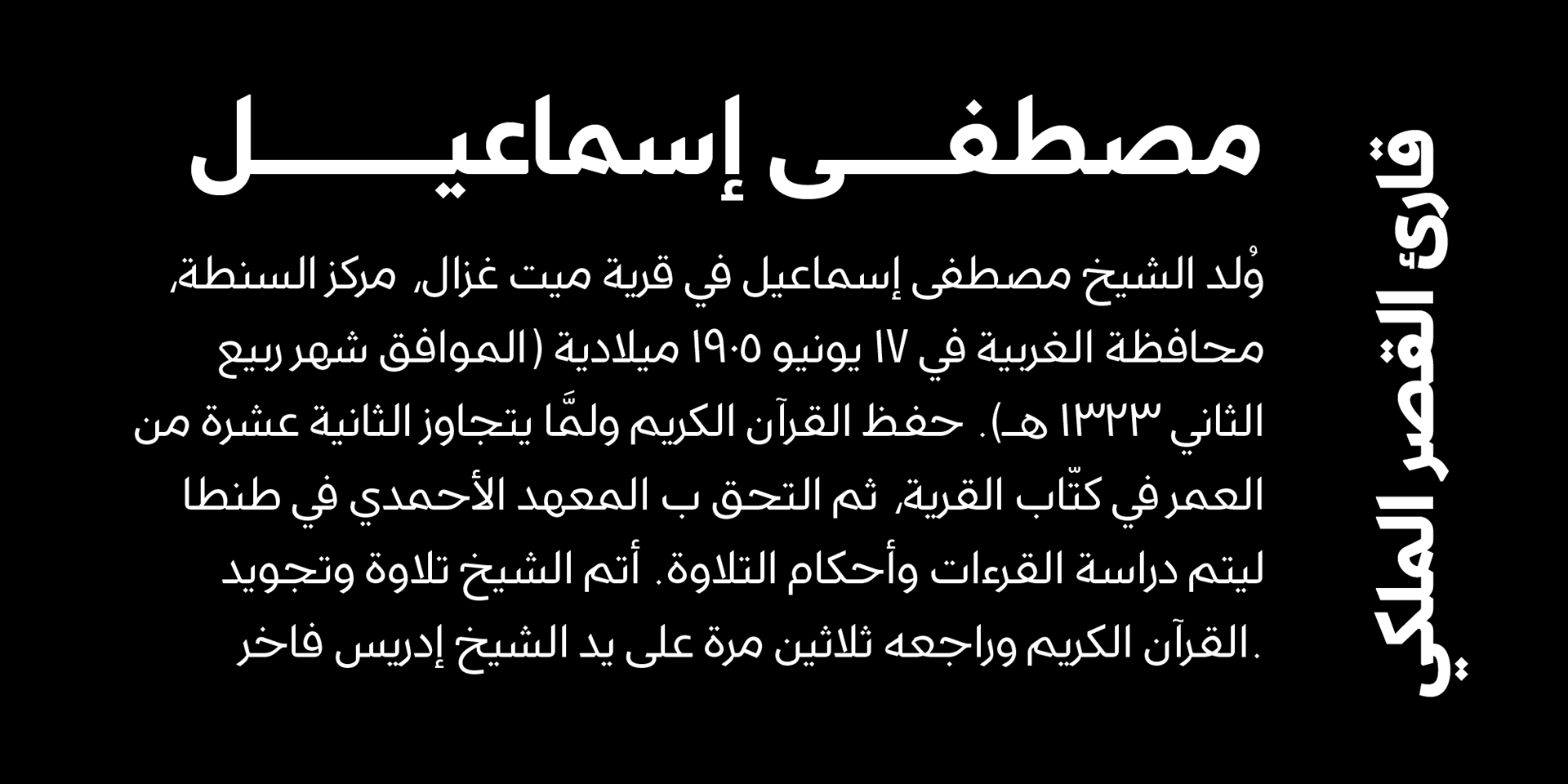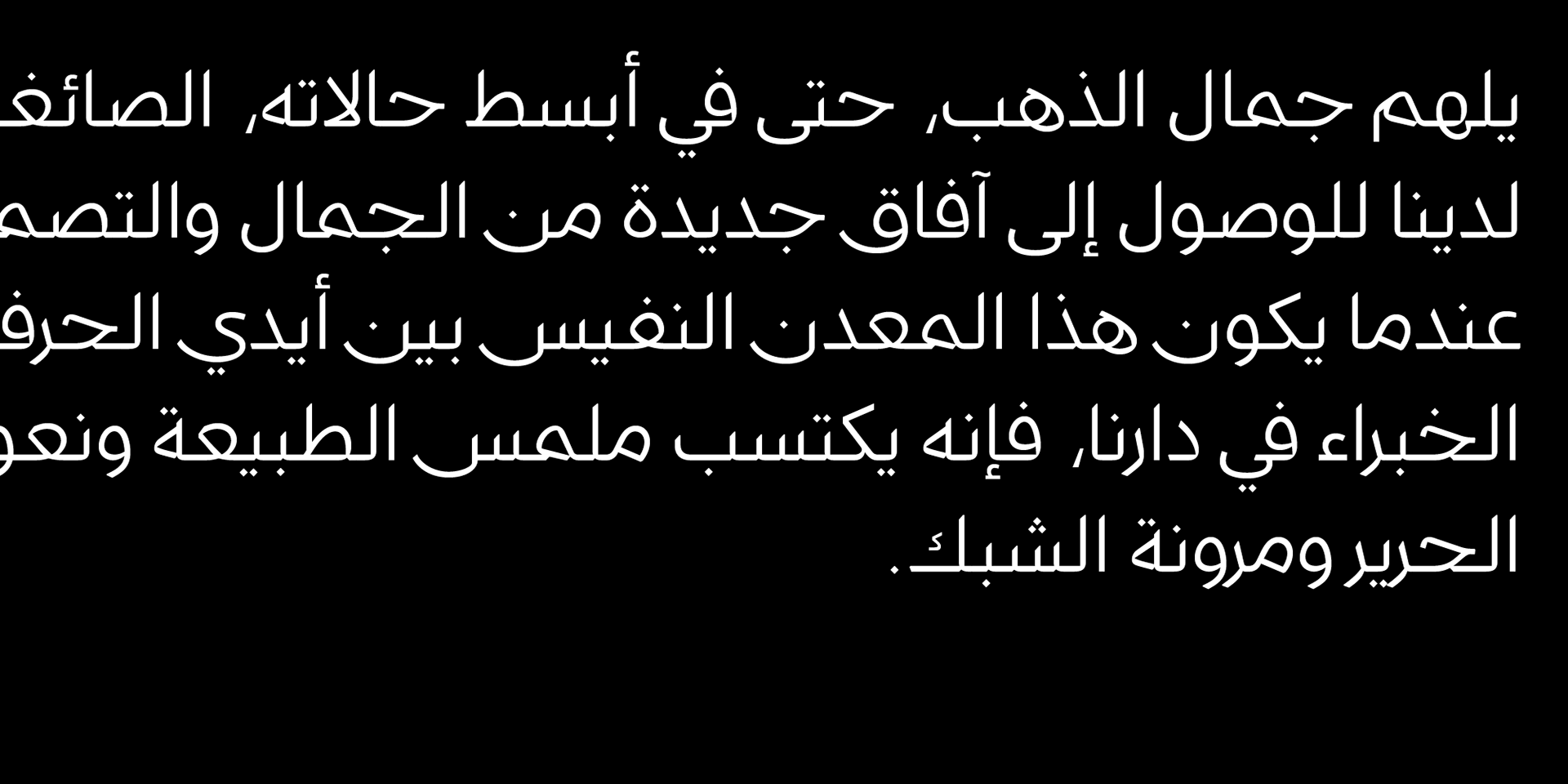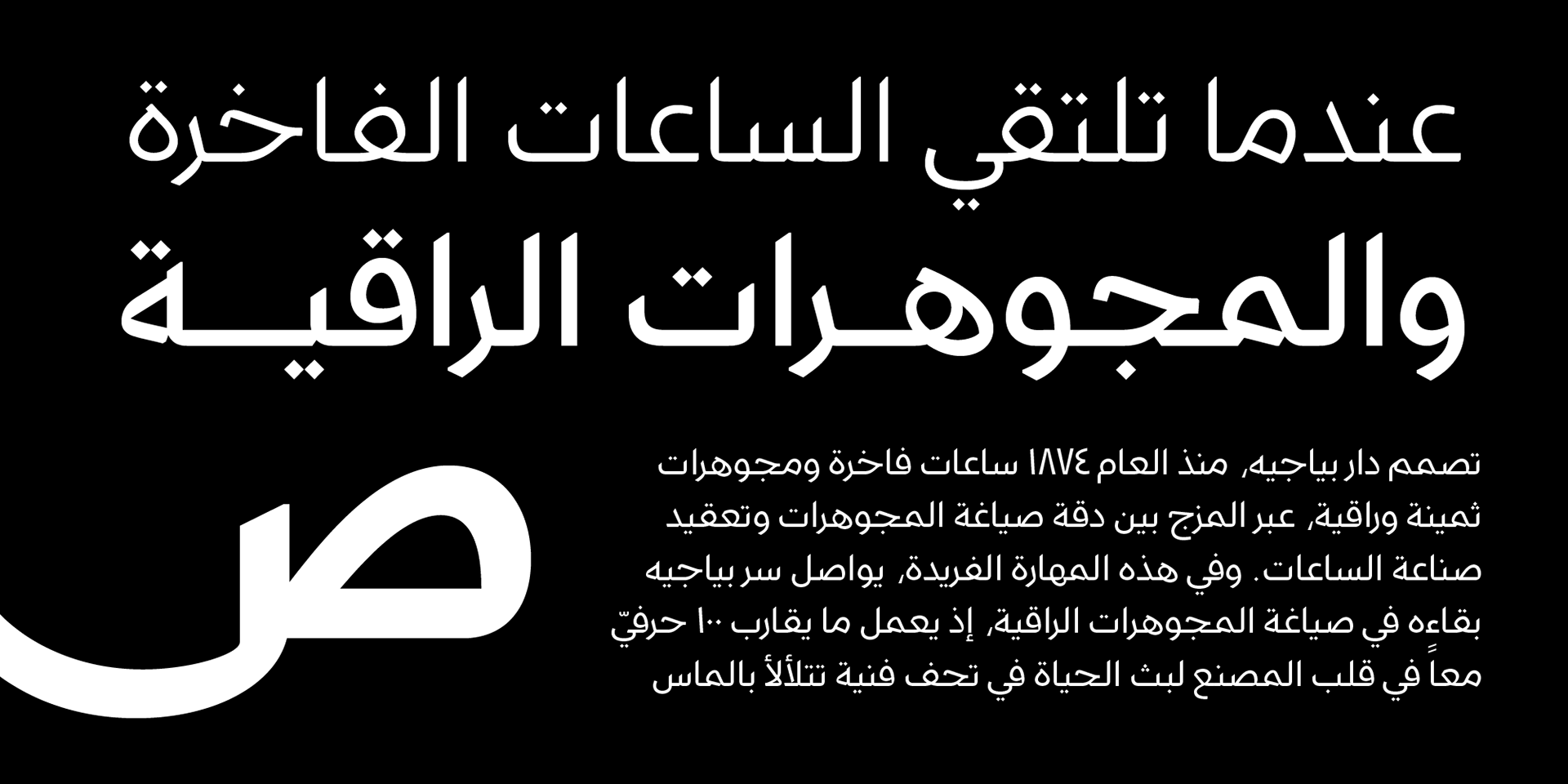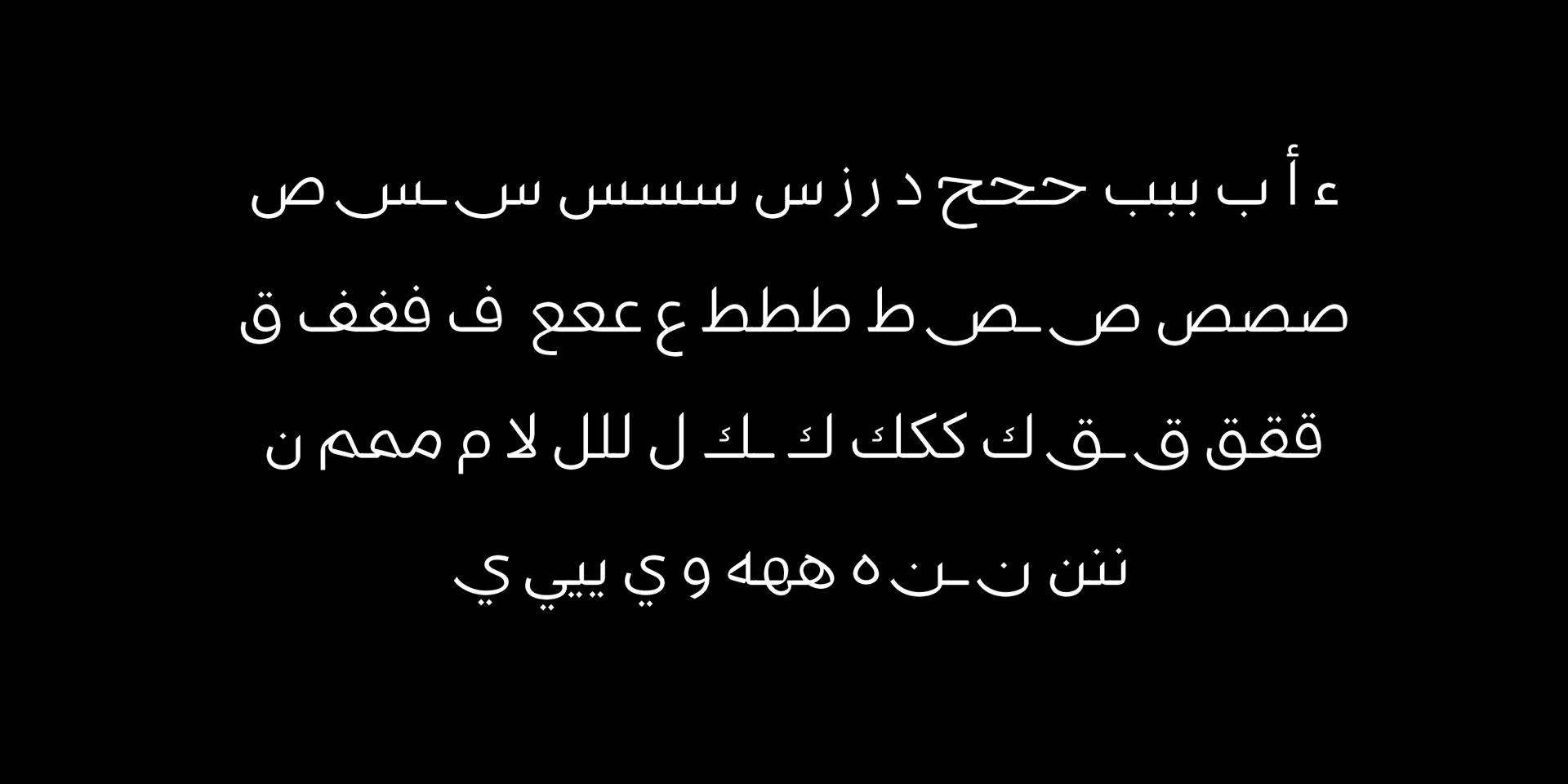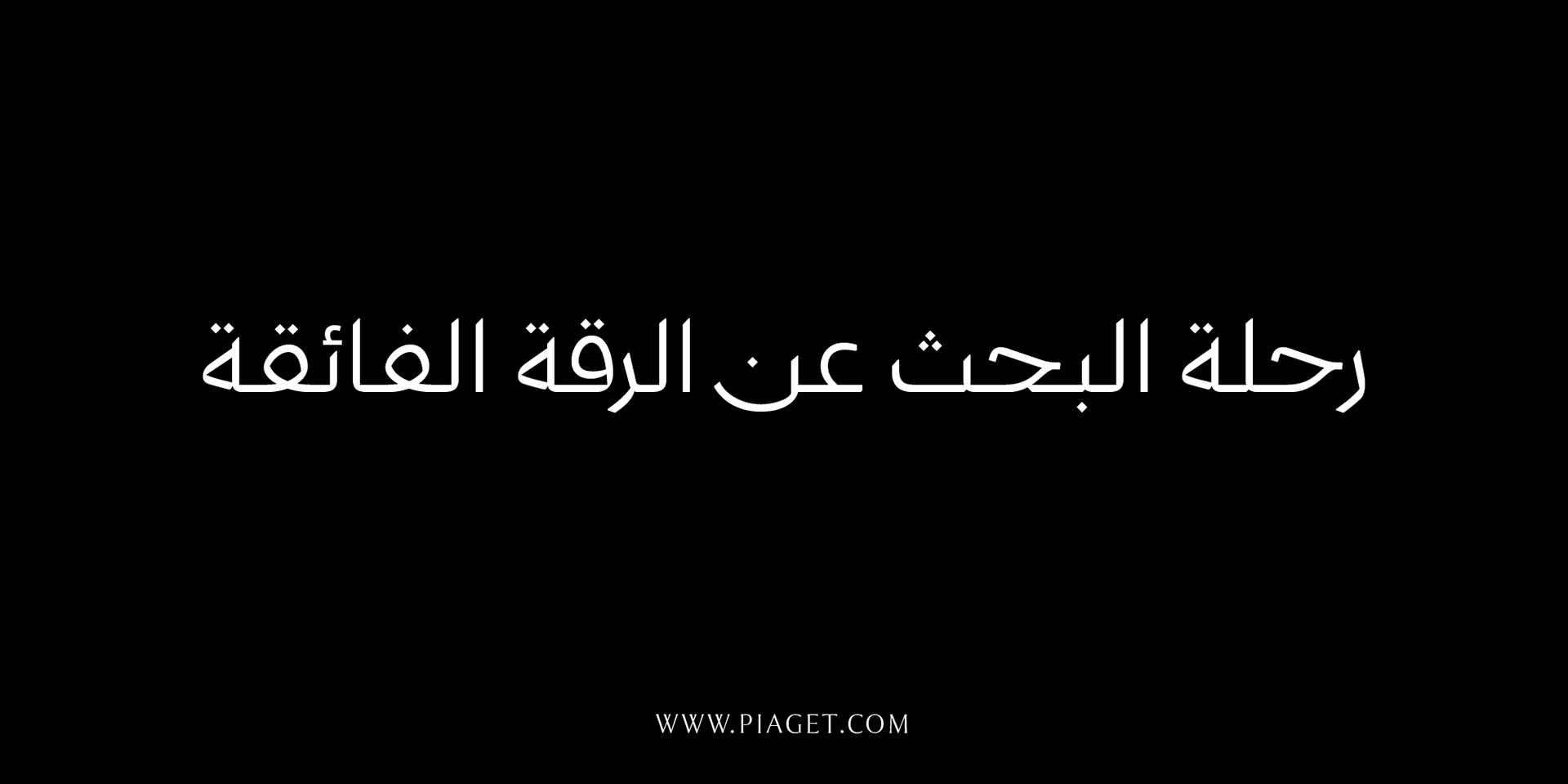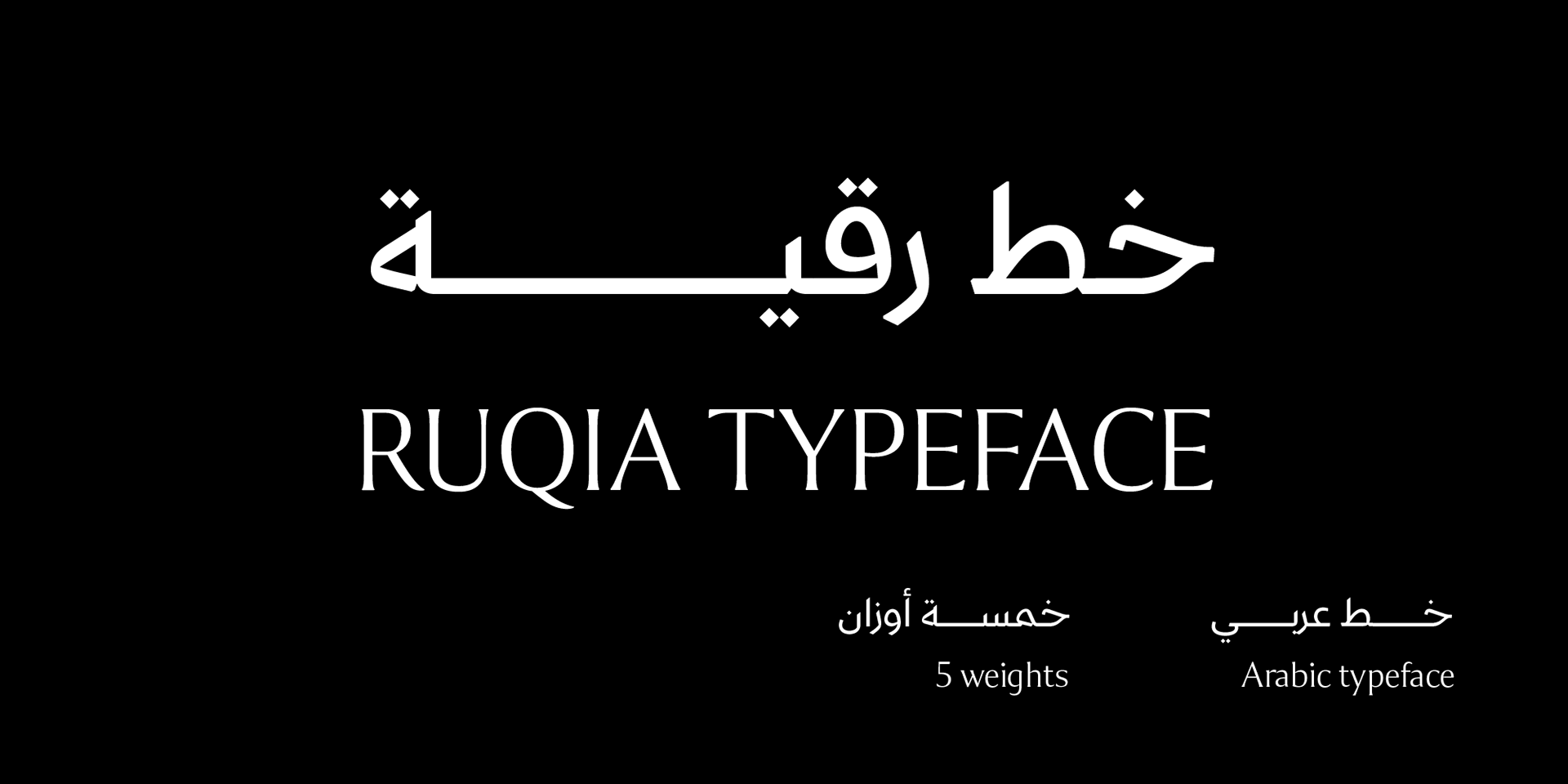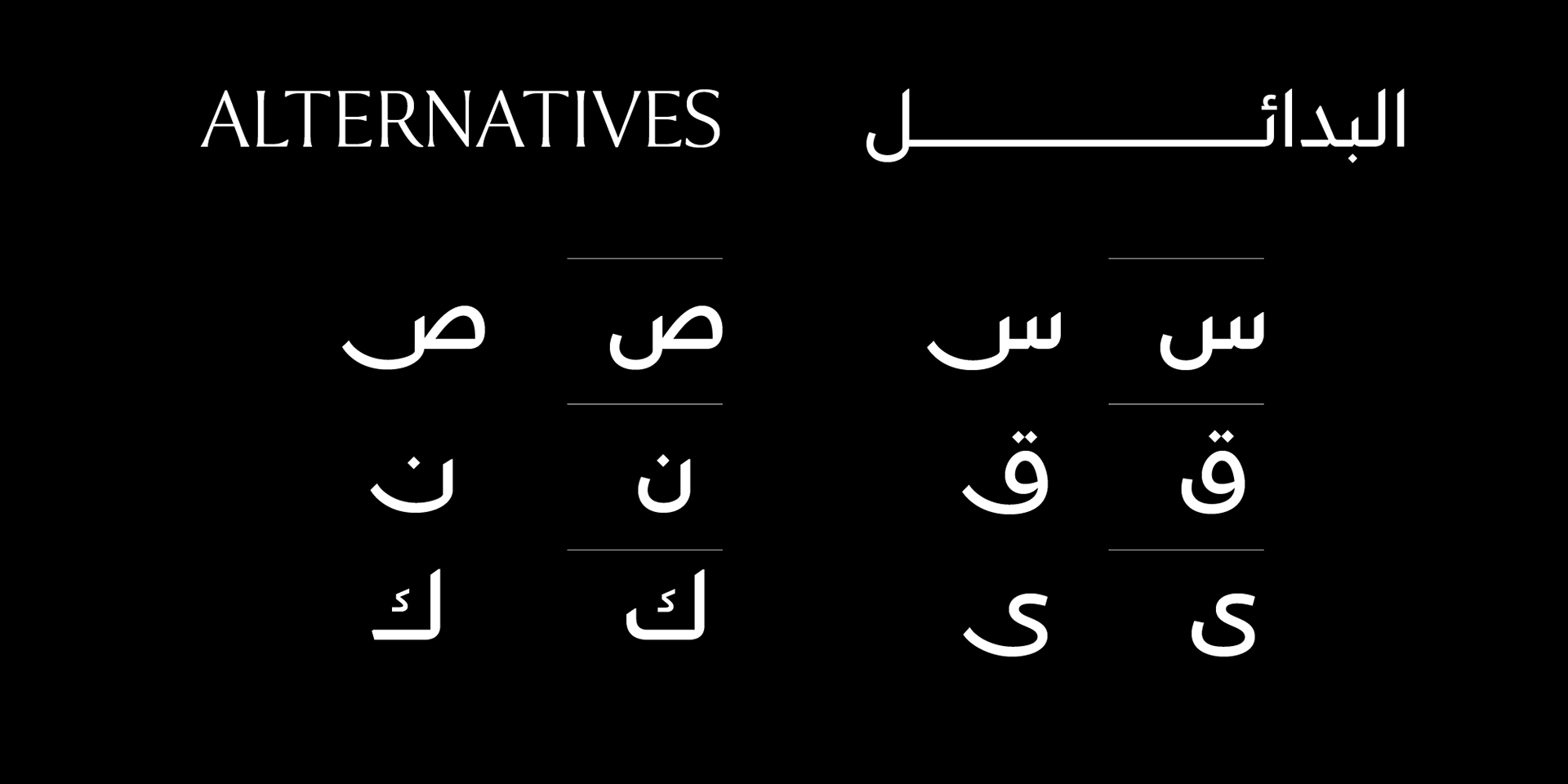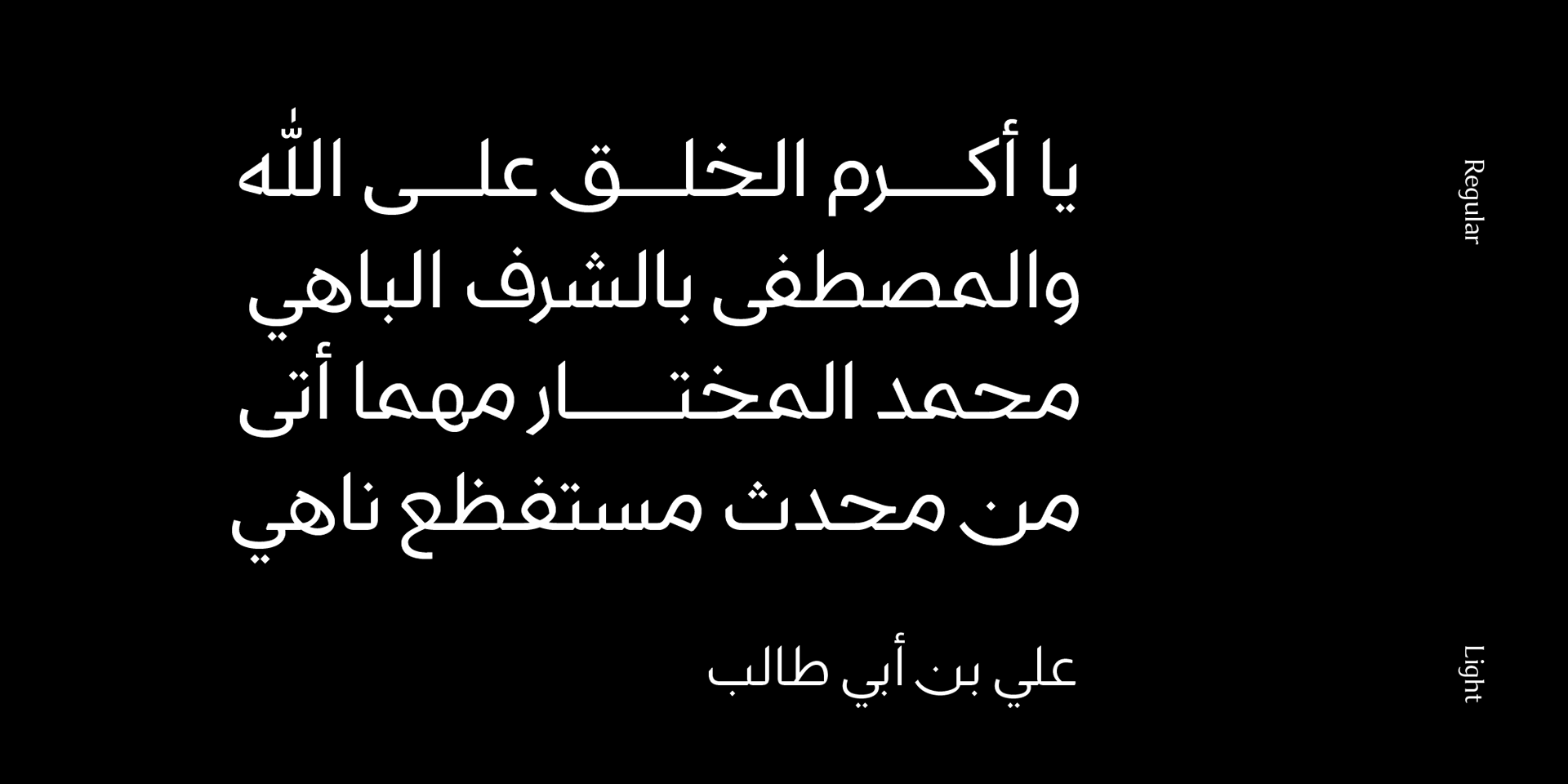
Ruqia Arabic typeface - خط رقية العربي
Ruqia Arabic typeface is a modern Arabic typeface designed by Ahmed Zaza. the design is inspired by the Naskh style. The result is a hybrid that combines modern proportions with Classic Arabic scripts it's suitable for branding, editorial, packaging, and…